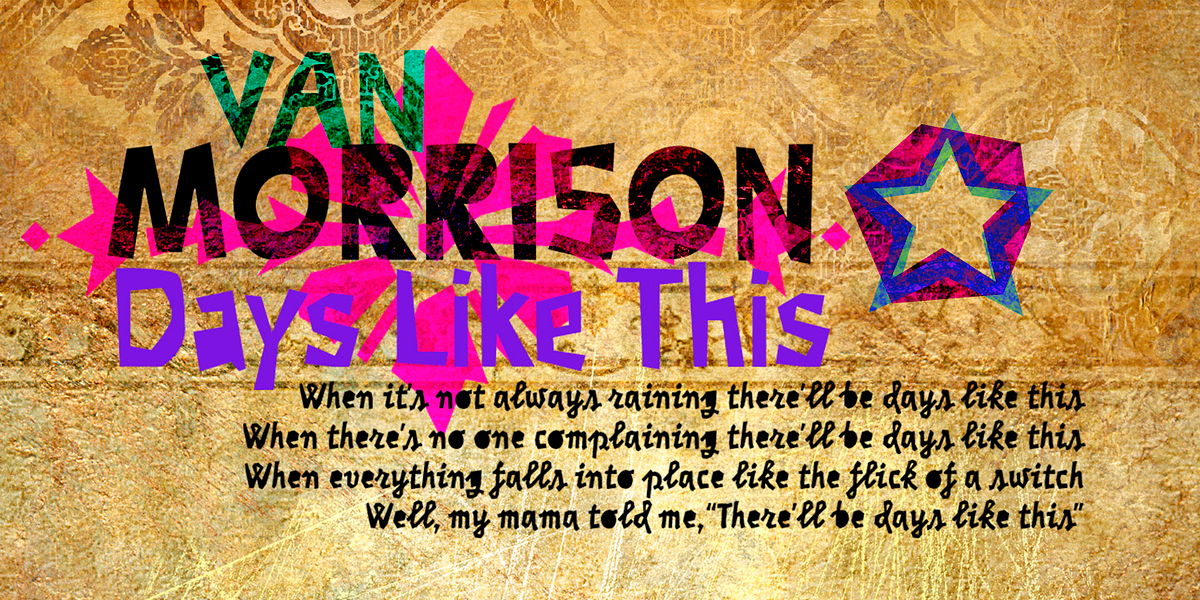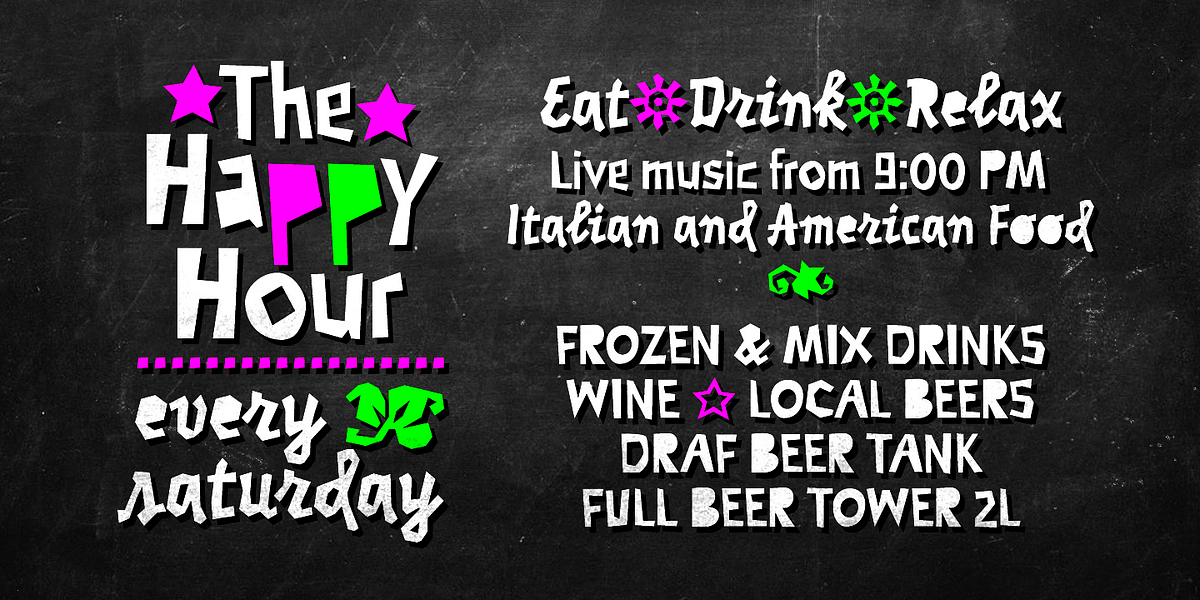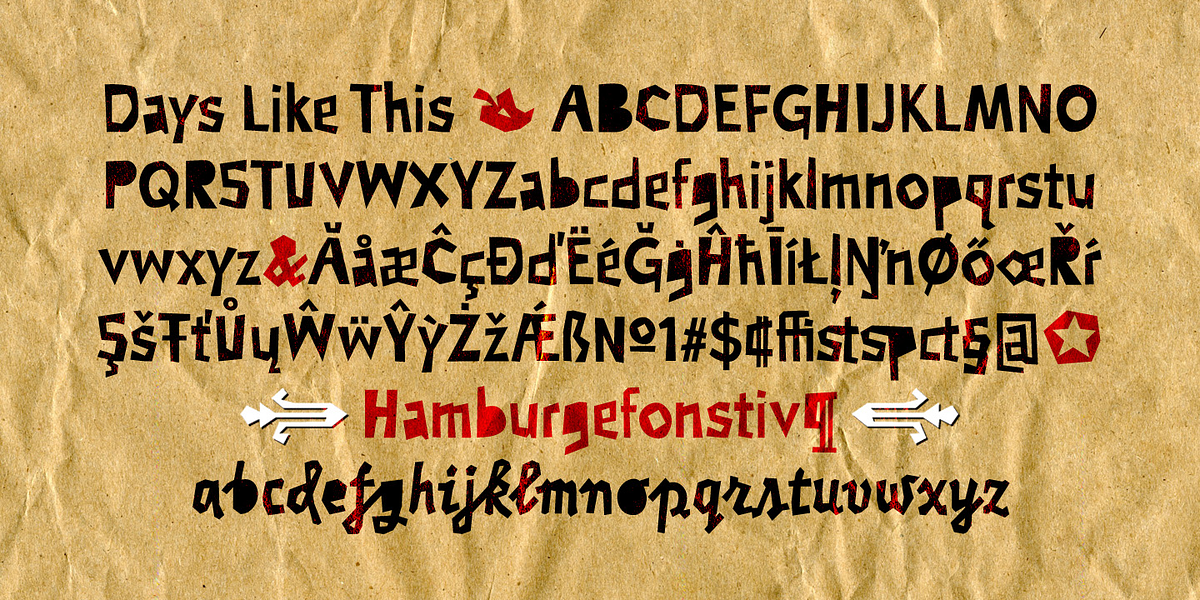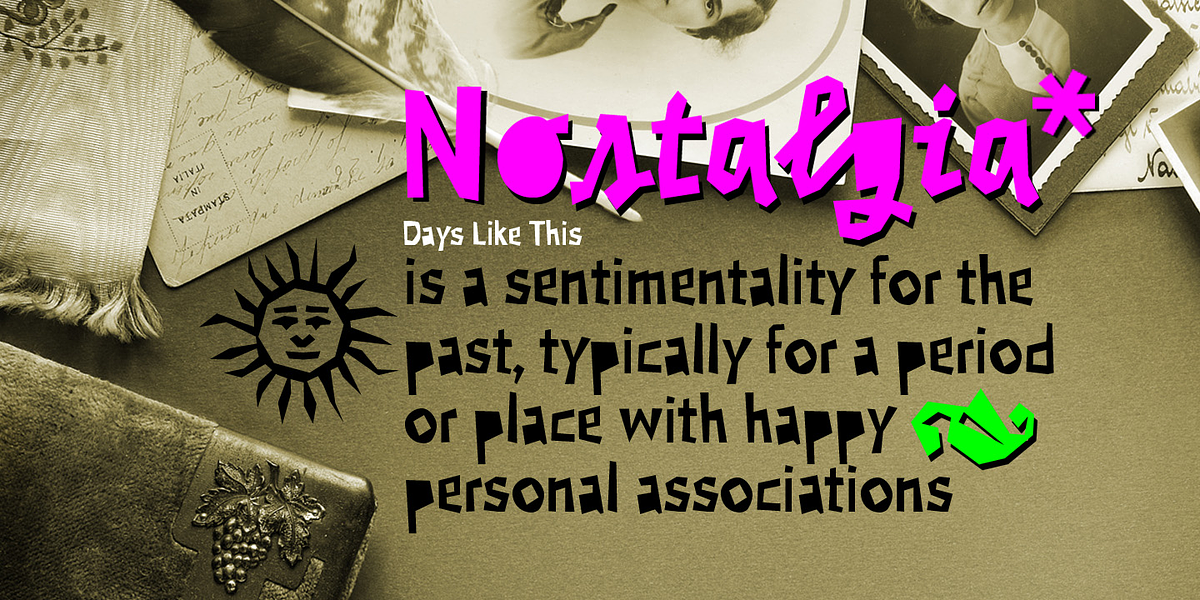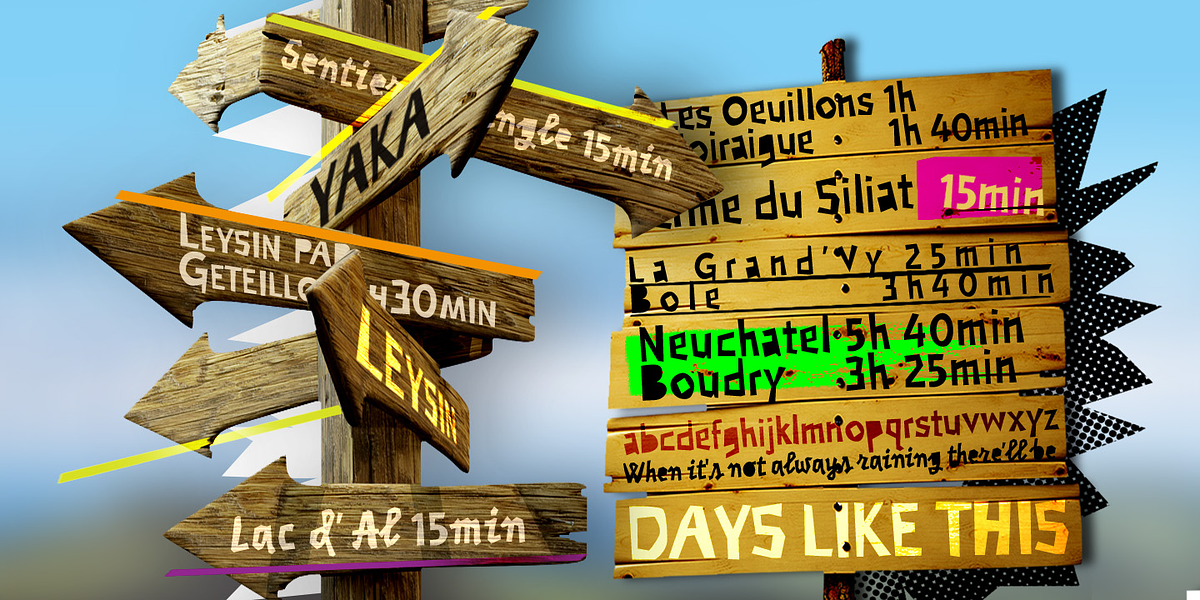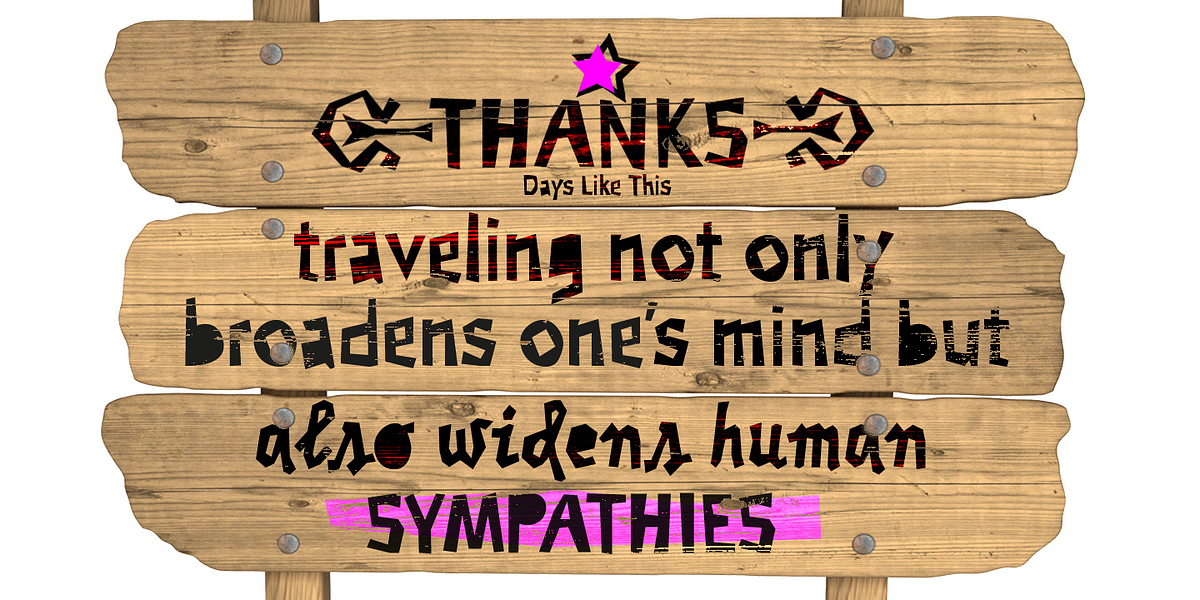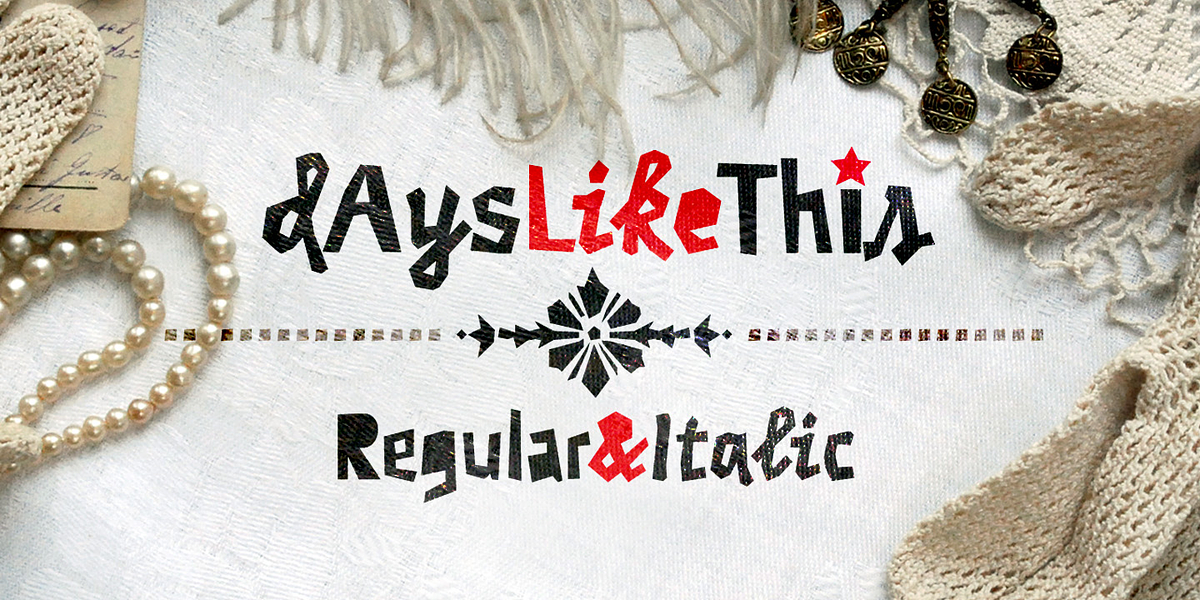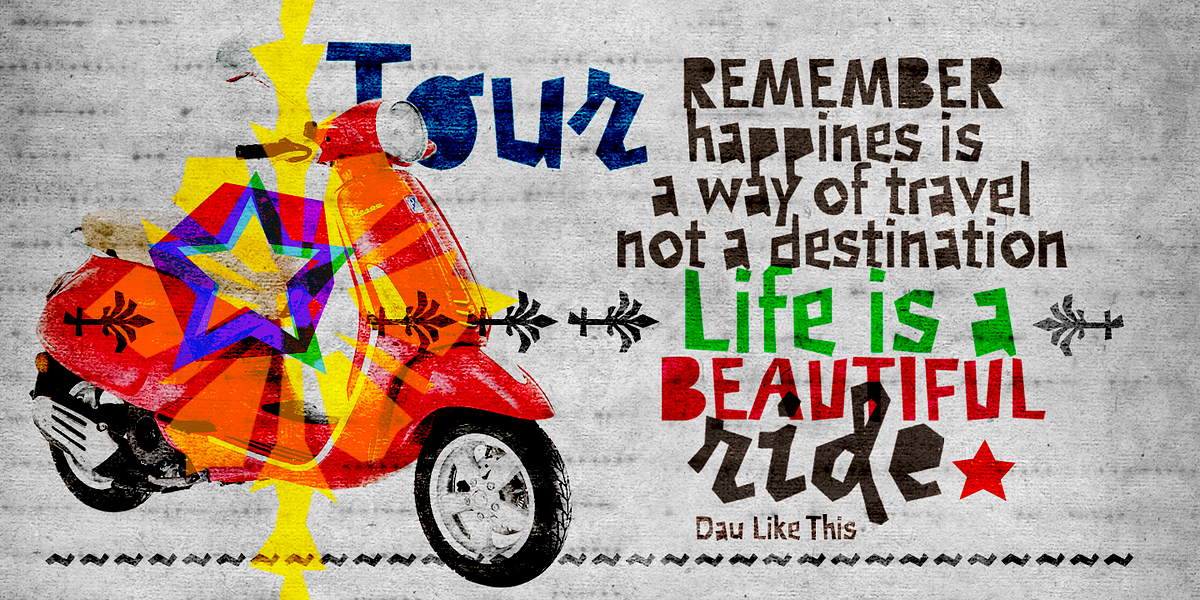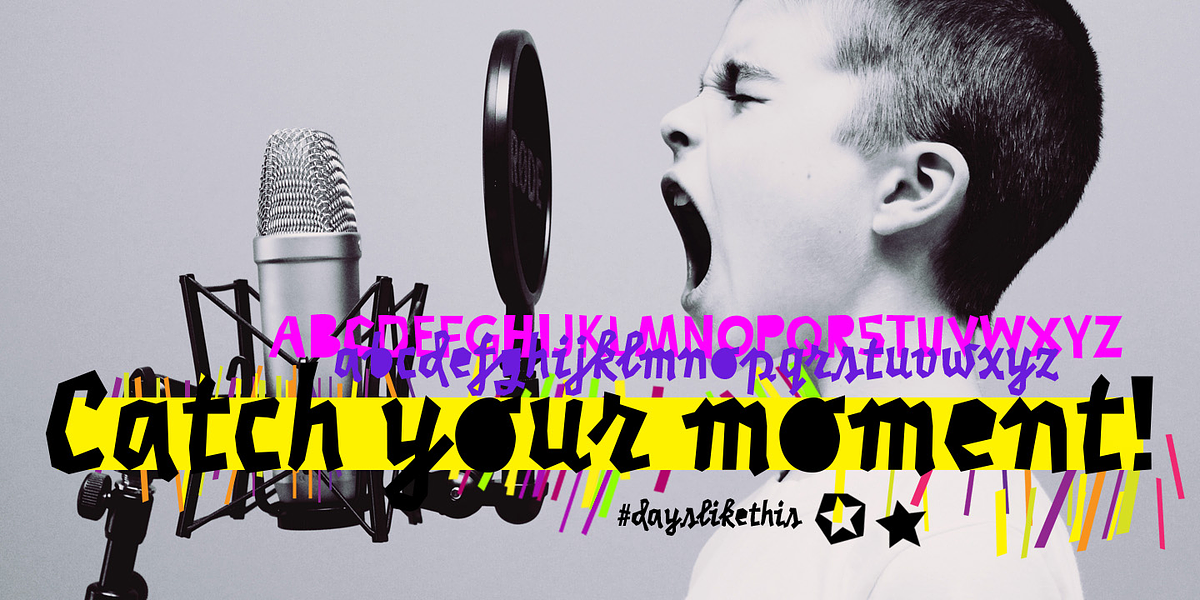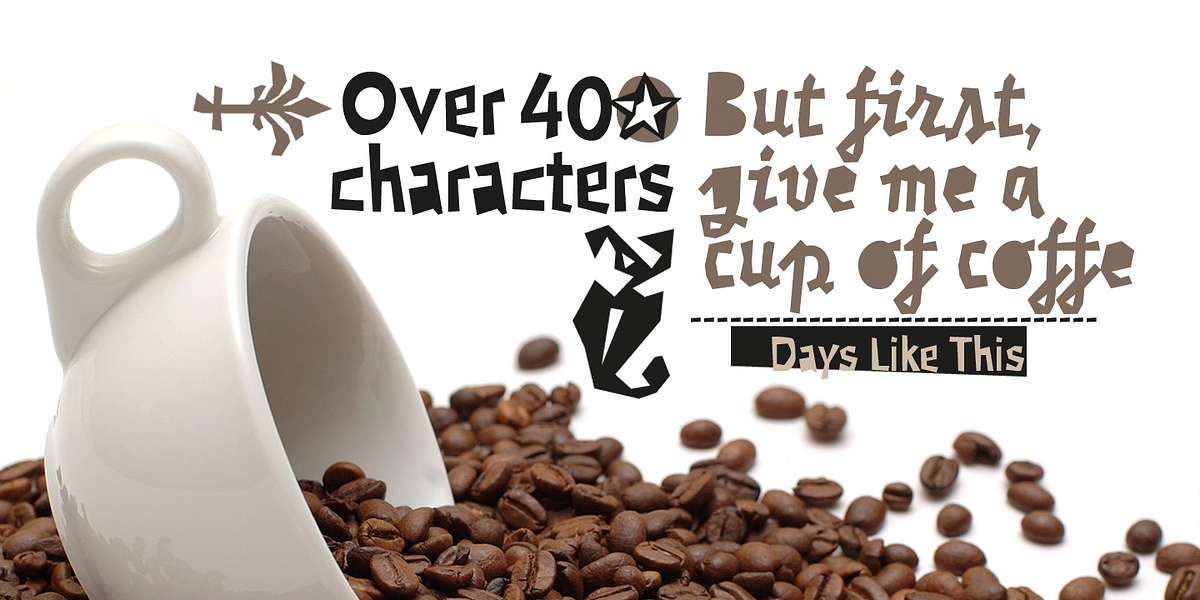
Days Like This
This modern decorative display font draws inspiration from Van Morrison's song 'Days like this'. It features a geometric, handmade style with square elements and a bouncy feel. The font includes over 400 characters, along with ornaments, making it versatile for various design applications such as logos, T-shirt designs, packaging, posters, billboards, magazines, and covers.